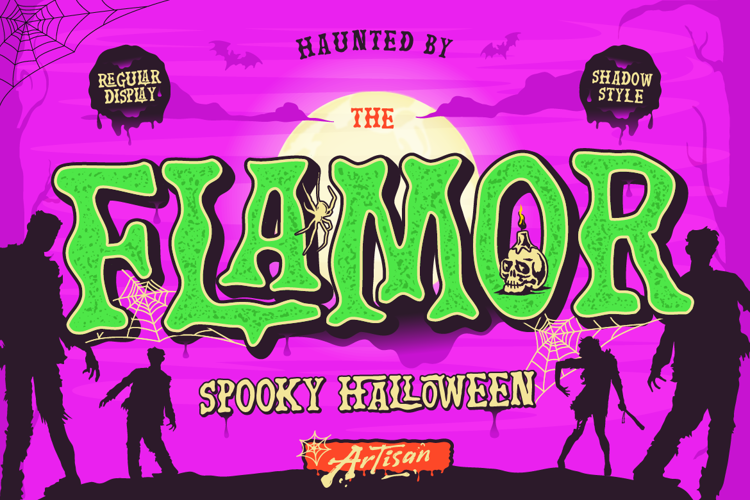
Flamor Font
Perfect for:
- Halloween event flyers & posters
- Spooky merchandise & T-shirt designs
- Book covers & comic titles
- Social media graphics & banners
- Party invitations & stickers